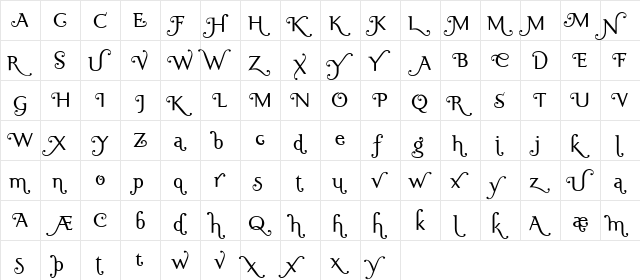
Ela Swashes SemiLight Regular
Design Context for Ela Swashes SemiLight Typeface
Ela Swashes SemiLight flows with the natural rhythm of handwritten lettering, making it ideal for designs that call for warmth and personal expression. The delicate stroke weight brings airiness and refinement to layouts.
Font Pairing: Combine Ela Swashes SemiLight with a simple geometric sans for maximum contrast — the tension between flowing curves and clean structure is a classic typographic pairing.
Pro Tip: Pair Ela Swashes SemiLight with a clean sans-serif for supporting text. The contrast between fluid script and geometric structure creates an elegant typographic hierarchy.